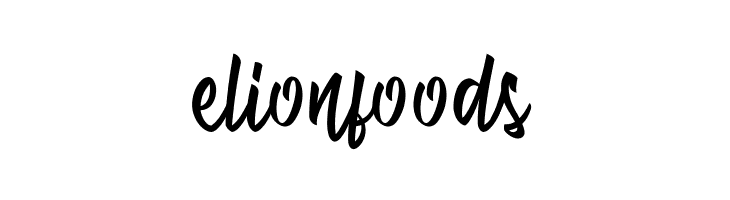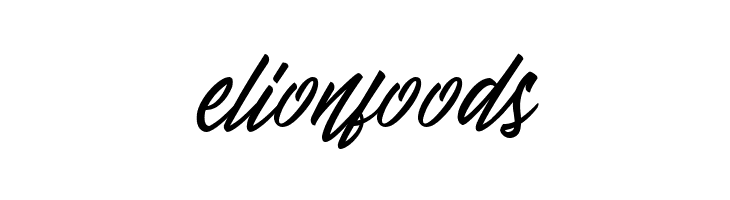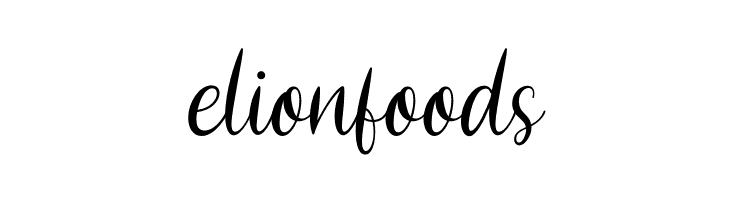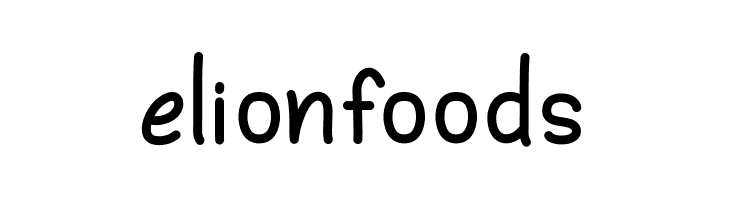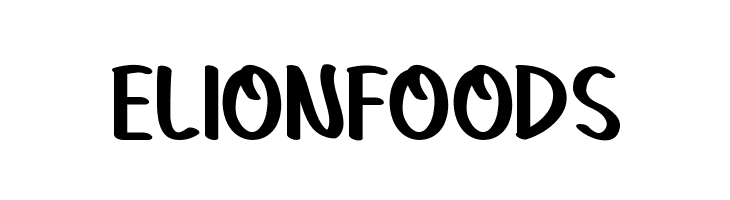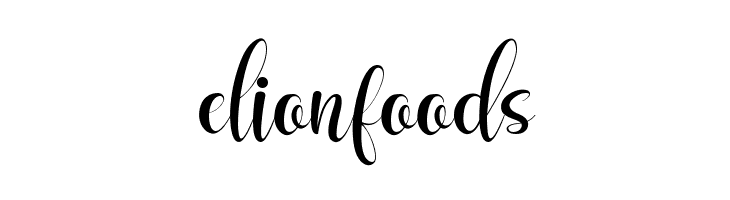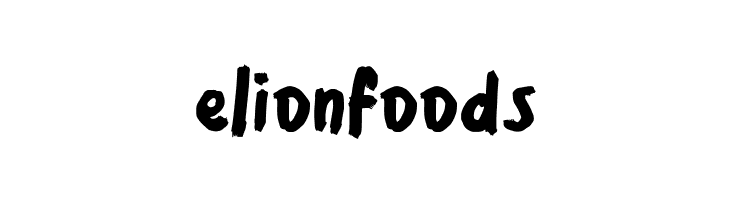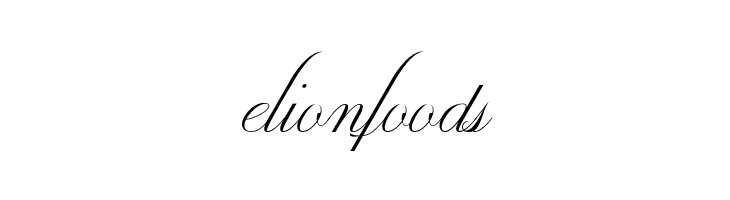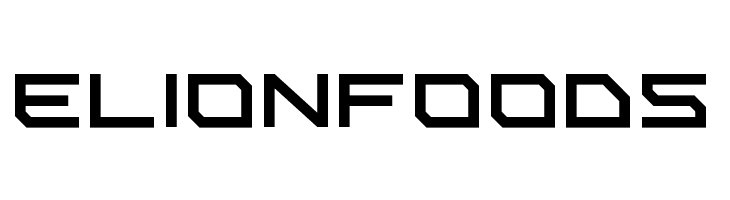
A graceful script font with flowing, connected strokes and elegant swashes.
An elegant script font with intricate swashes and high contrast, perfect for formal designs.
A dynamic, cursive script font with elegant, flowing strokes.
A dynamic and expressive handwritten script font with a modern flair.
A bold, expressive handwritten font with brush-like strokes and dynamic character.
An elegant script font with intricate swirls and decorative flourishes.
A playful, handwritten font with smooth, rounded edges and a casual flow.
A playful and expressive handwritten font with bold, fluid strokes.
A bold, rounded, and playful font with a hand-drawn feel.